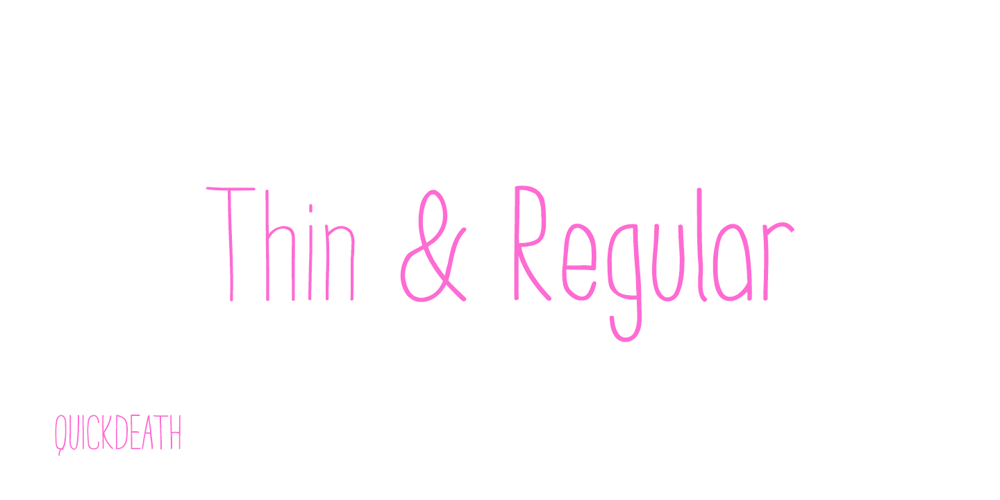
Quick Death
Quick Death font
Quick Death Font Family was designed by Adam Greasley and published by wearecolt. Quick Death contains 2 styles and family package options. QuickDeath was designed with the intention of being a versatile display font. It can add an eerie undertone or be pretty cutesy. Quirky irregularities are what really make this font stand out.